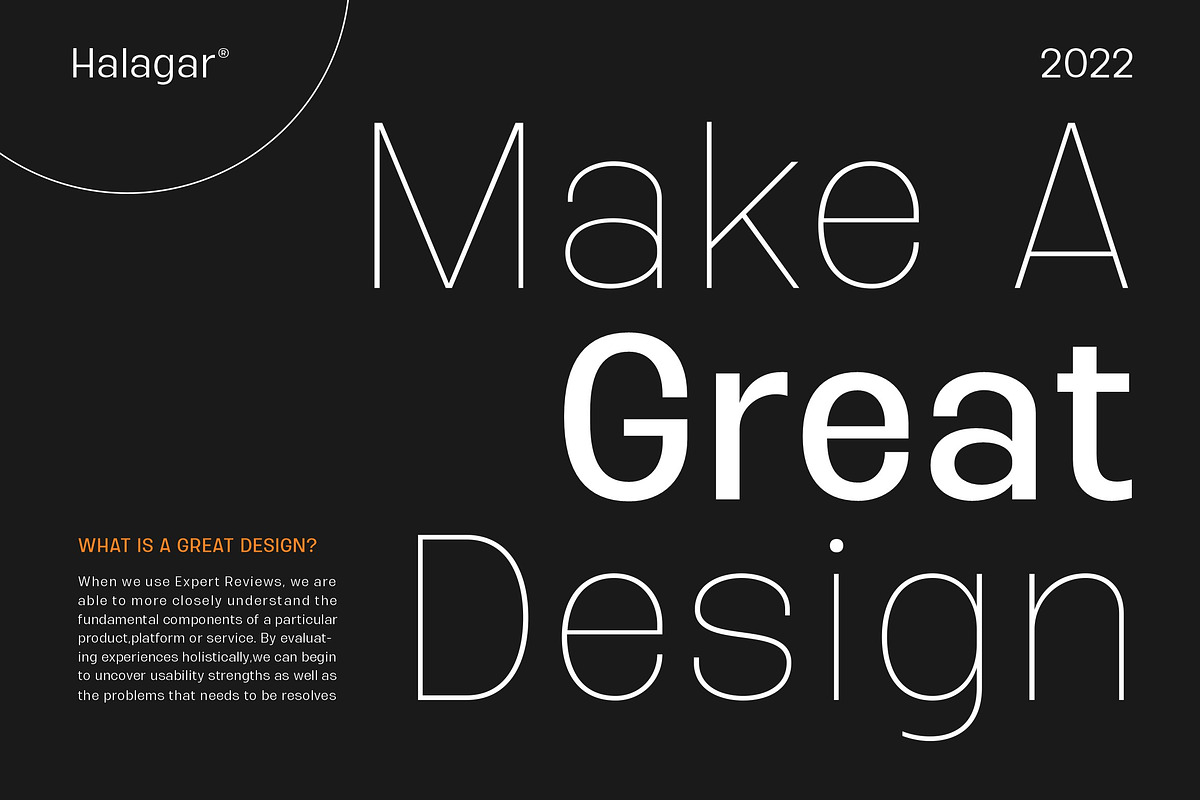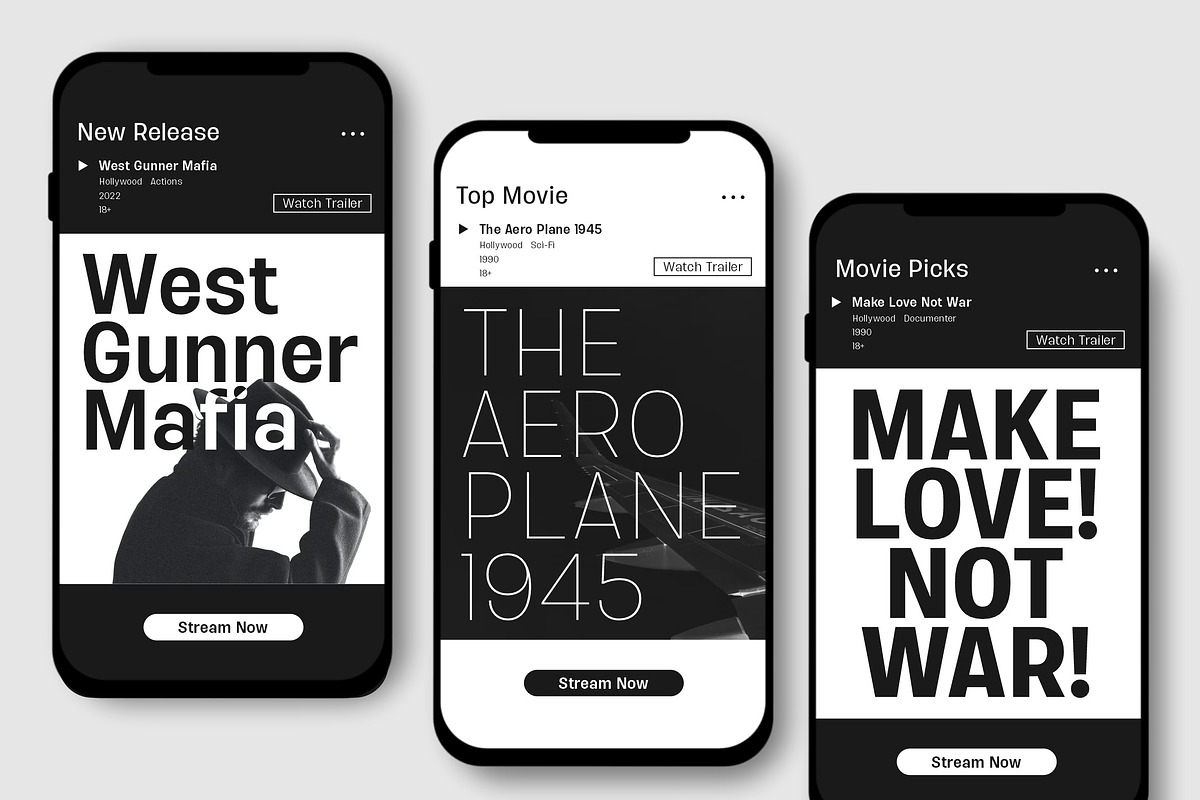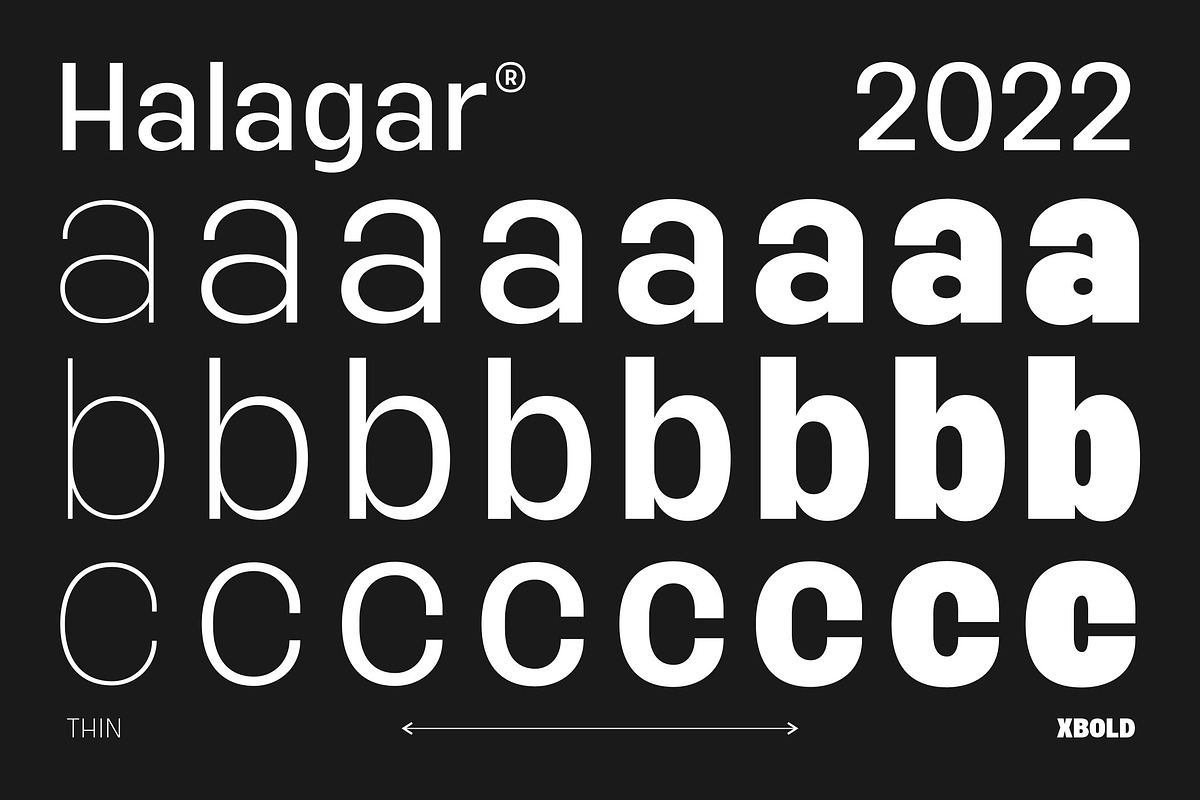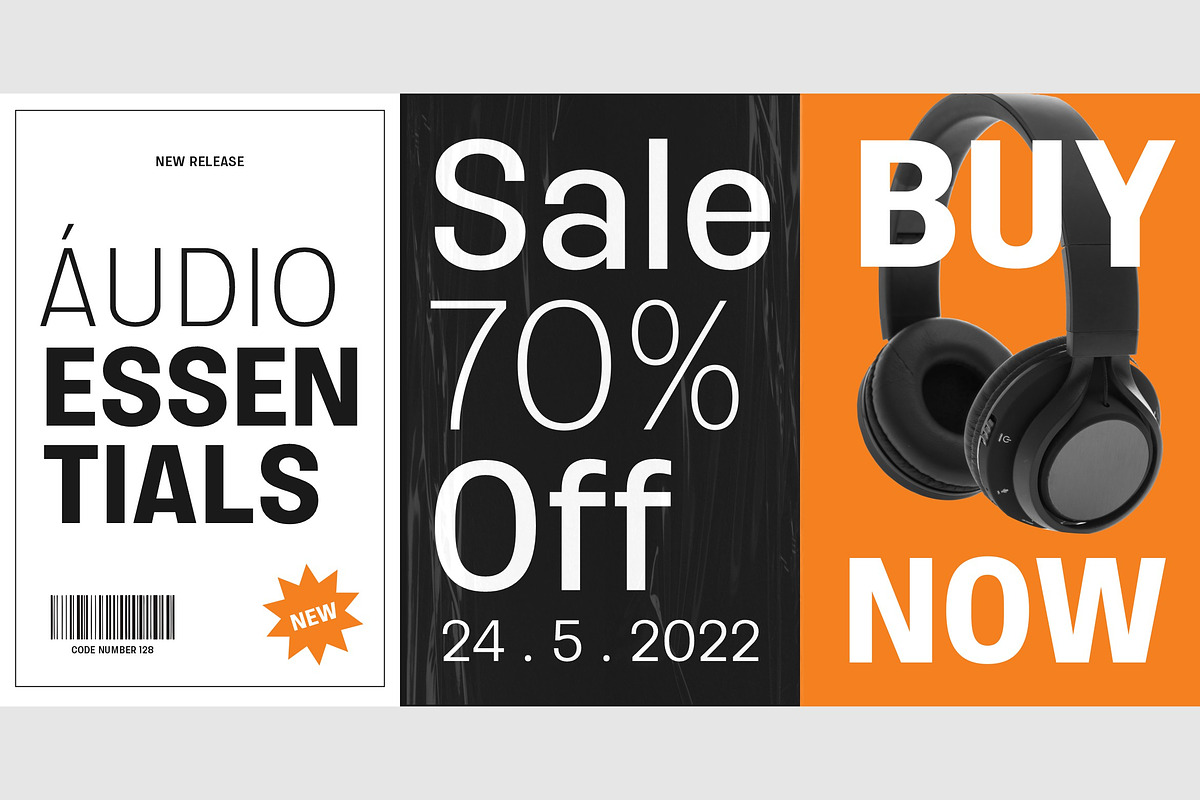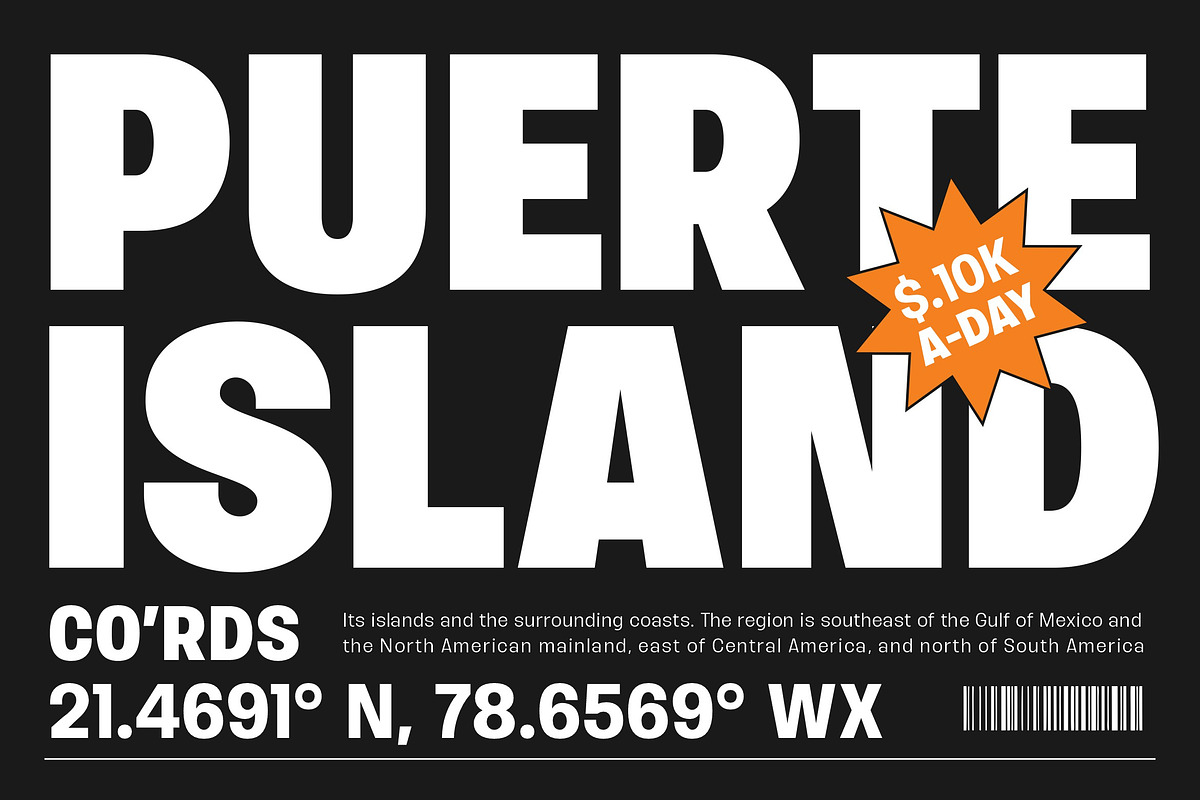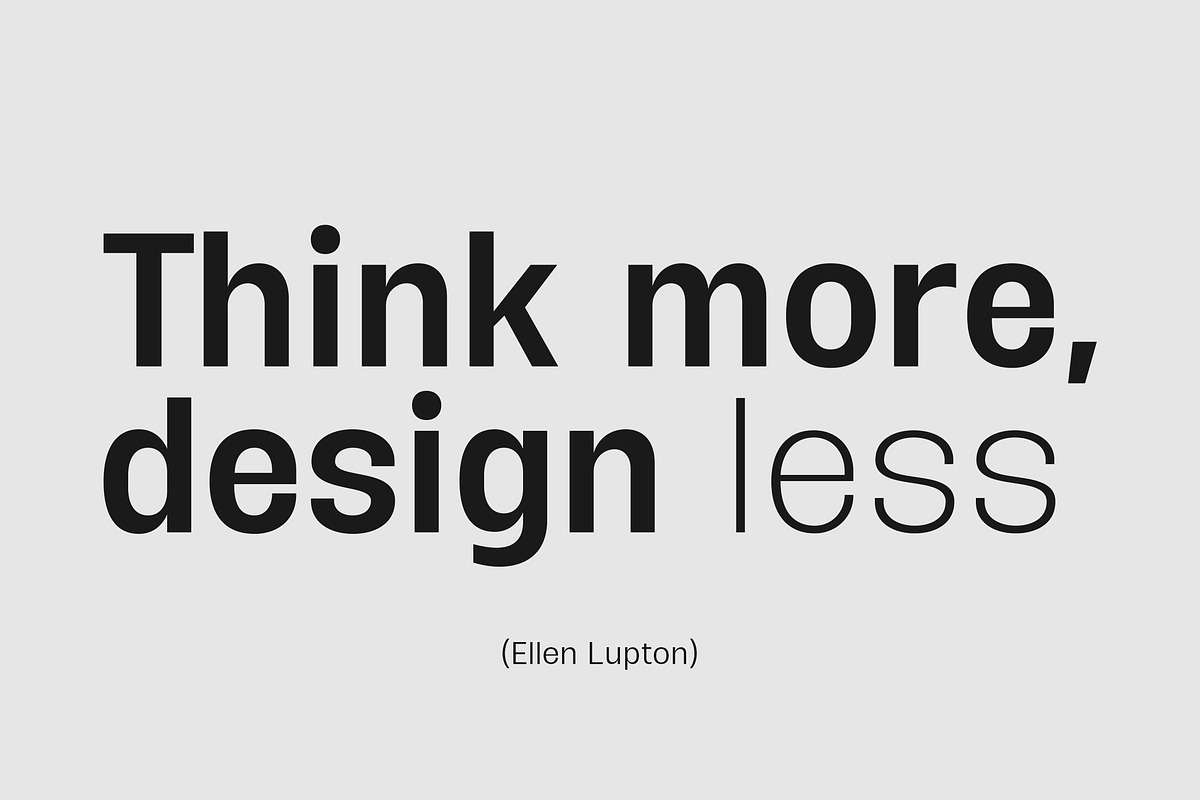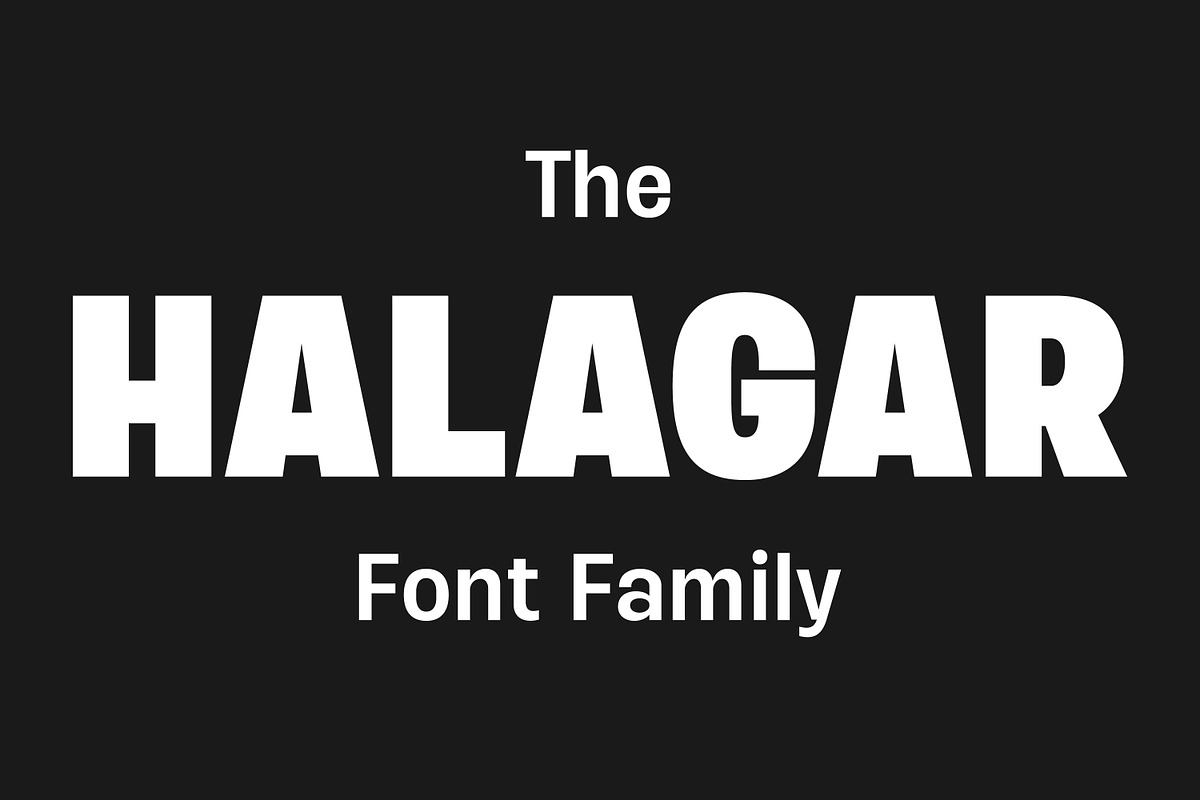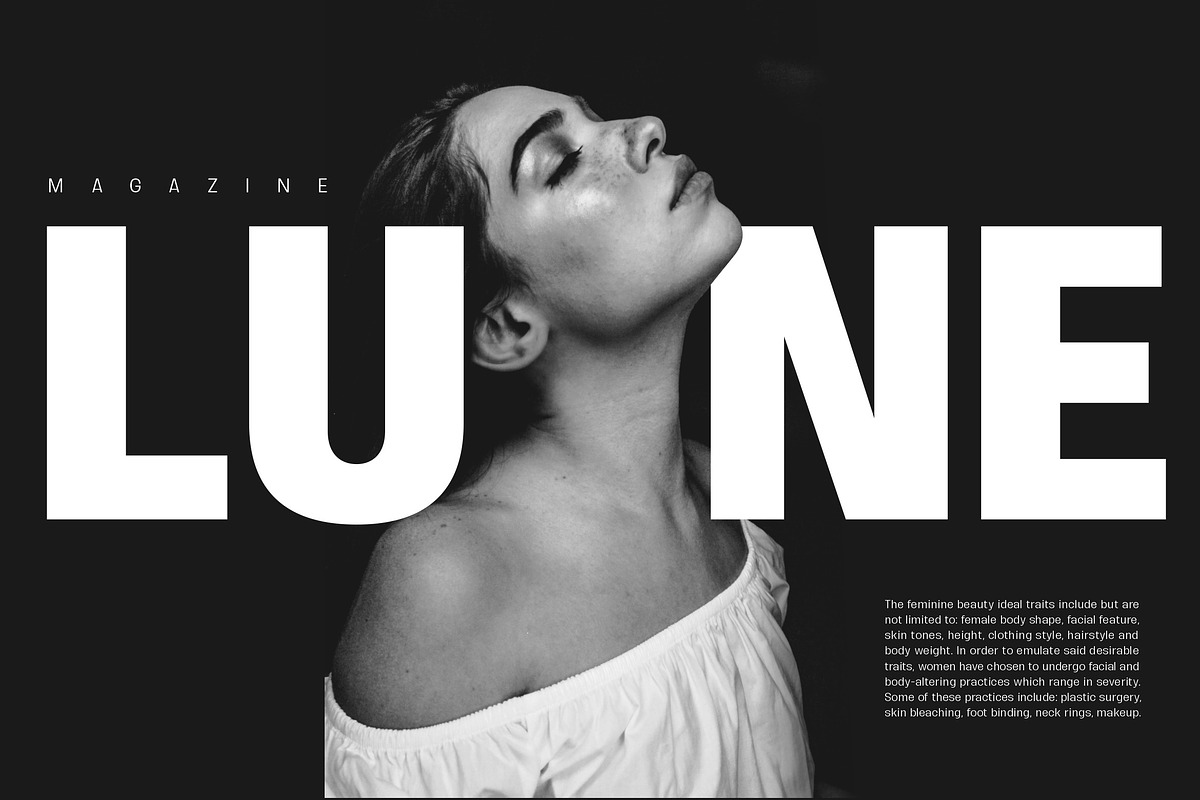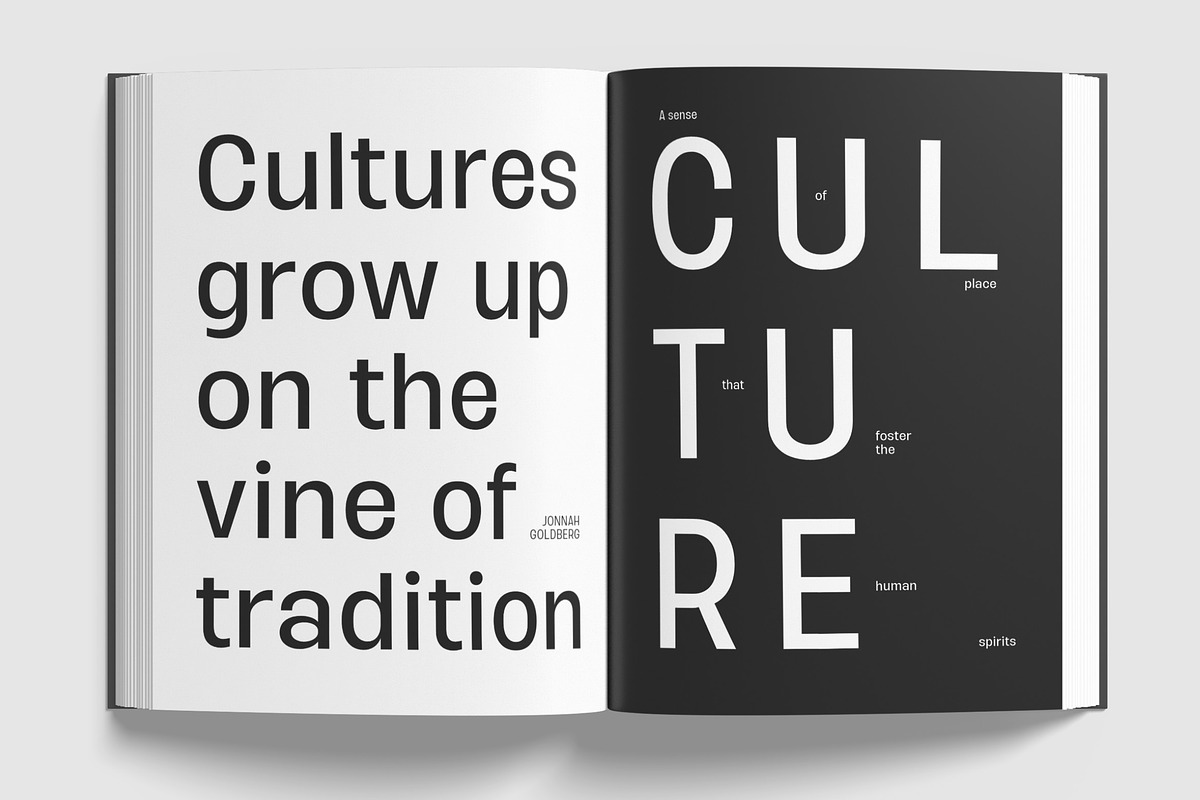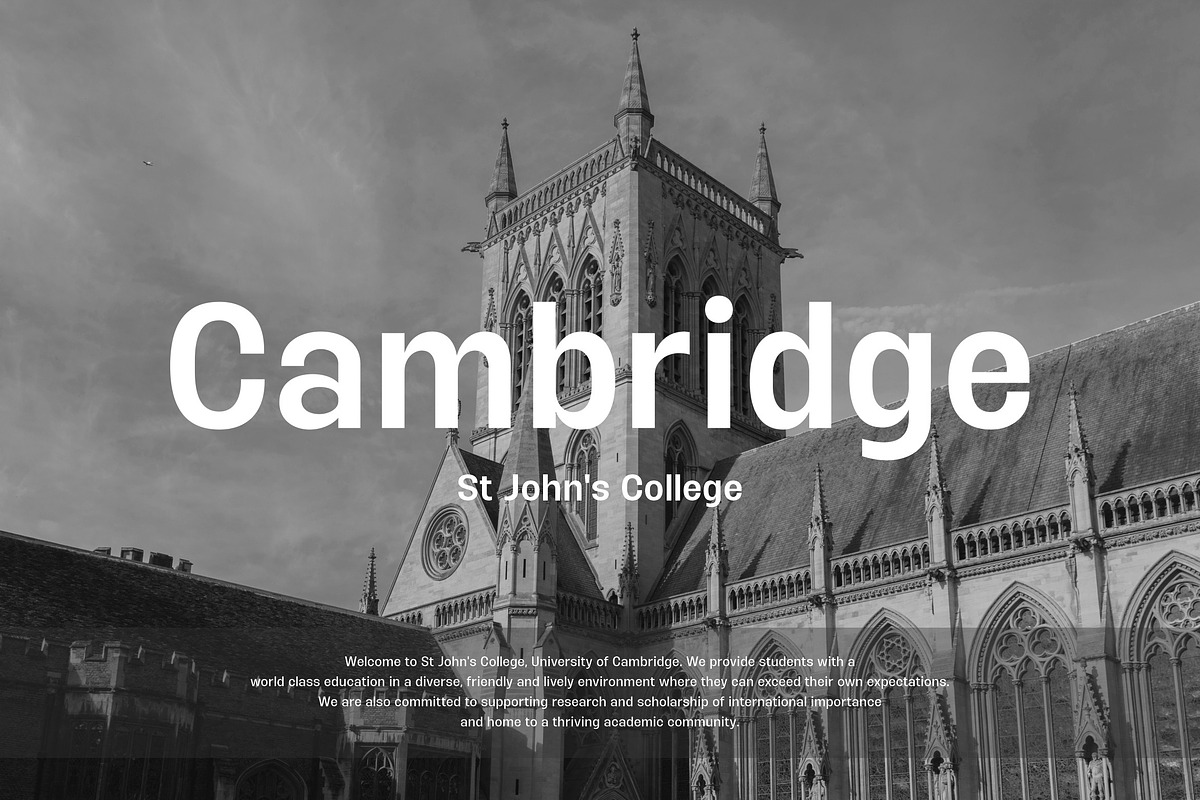
Halagar Sans Family
Meet 'Halagar' - our versatile font family that brings a dash of masculine charm to your creative toolbox. With a diverse range of 8 weights, 'Halagar' offers endless possibilities for your design projects.
Whether you're crafting a bold brand identity, designing eye-catching packaging, laying out engaging body text, creating striking titles, composing captivating posters, or sharing vibrant social media posts, 'Halagar' has you covered. Its strong and assertive presence adds a touch of confidence to every piece.
With 'Halagar,' you're not just getting a font; you're getting a reliable design companion that elevates your work to the next level. Explore the endless potential and let 'Halagar' be your go-to choice for all things branding, packaging, and beyond. Unleash your creativity with 'Halagar' today and make your designs stand out in style!
- Ligatures.
- Numeral, Punctuation, Multilingual Accents.